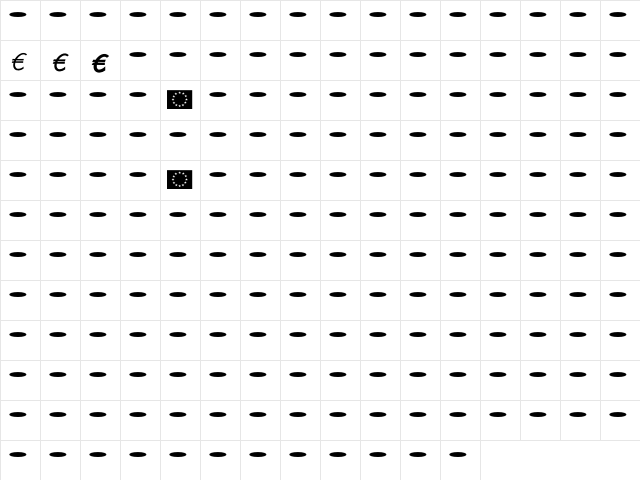
FriSatSun-Euro Regular
Design Context for FriSatSun-Euro Typeface
FriSatSun-Euro takes a measured approach to typography — its balanced proportions and neutral character make it a reliable workhorse for both digital and print work.